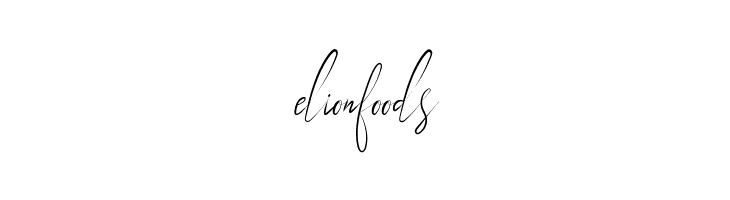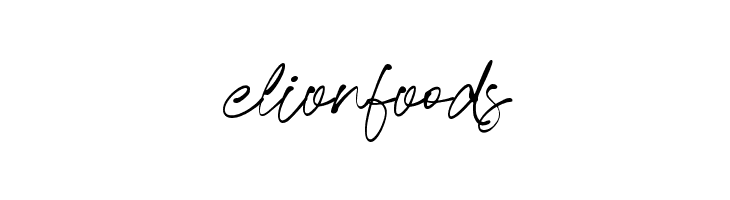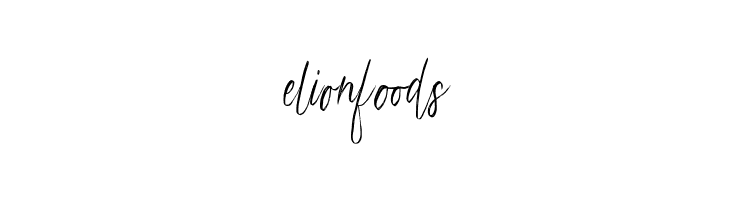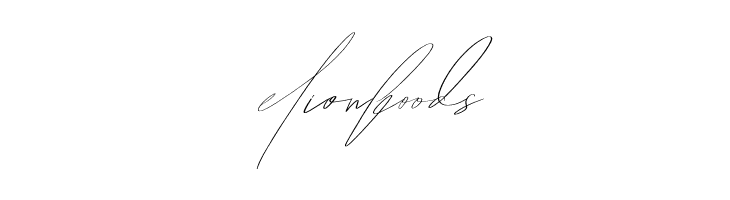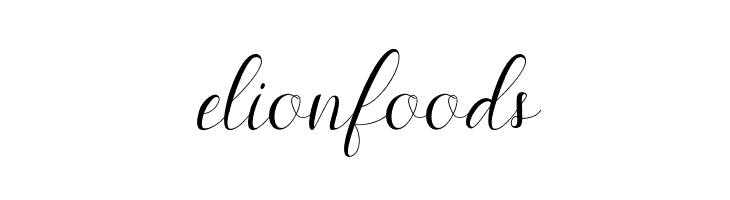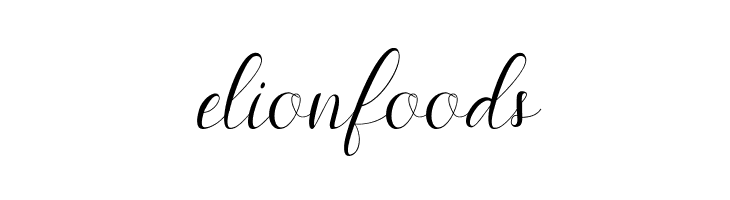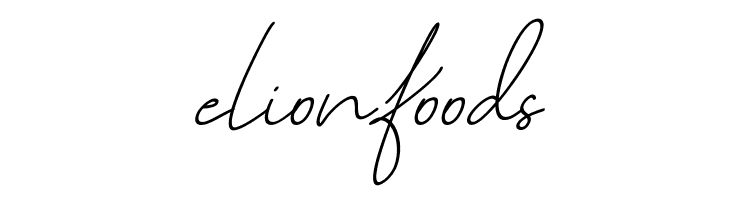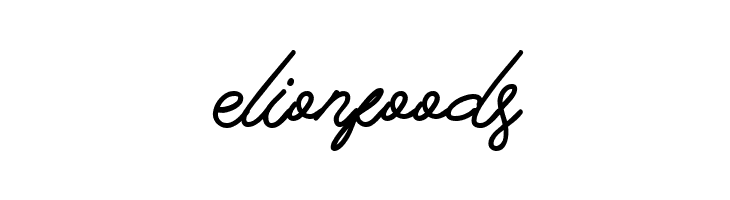
A charming and elegant handwritten font with fluid, graceful strokes.
An elegant, flowing script font with thin, graceful strokes.
A graceful, cursive script font with a natural, handwritten style.
A graceful, flowing script font with elegant curves and a handwritten style.
An elegant and fluid script font with graceful, sweeping strokes.
A graceful, cursive script font with a handwritten signature style.
An elegant, flowing script font with high contrast and graceful curves.
A graceful script font with flowing, cursive strokes and elegant curves.
A graceful monoline script font with fluid, elegant strokes.
A graceful script font with fluid, connected strokes and elegant style.